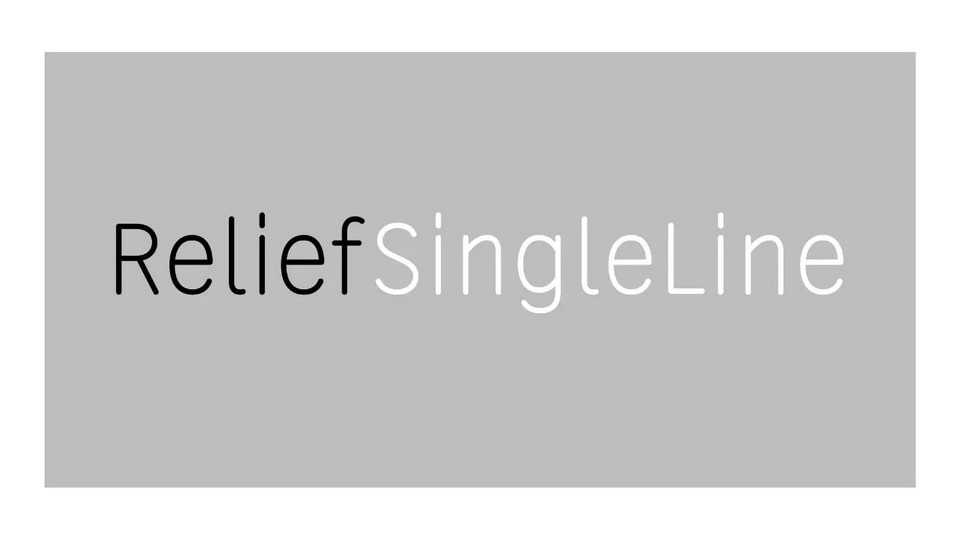
Download Relief SingleLine font, a versatile sans serif single-line typeface with open paths oriented towards CNC (Computer Numerical Control) engraving and fab labs environments.
Designer: Noëlie Dayma